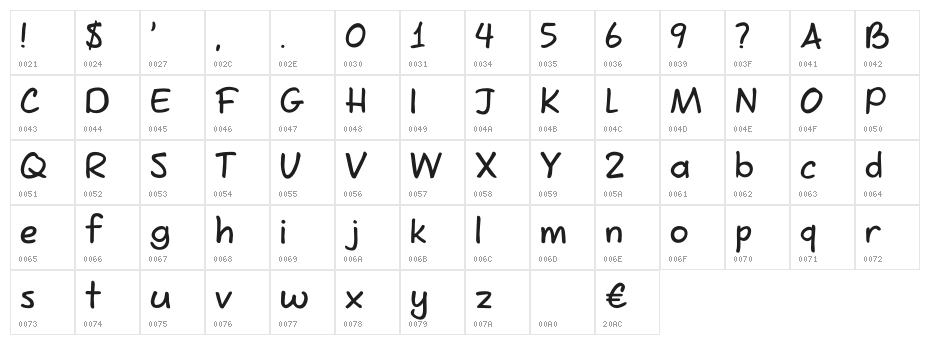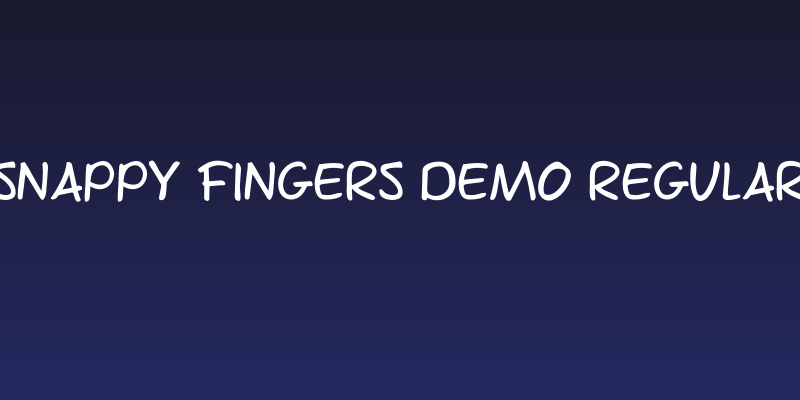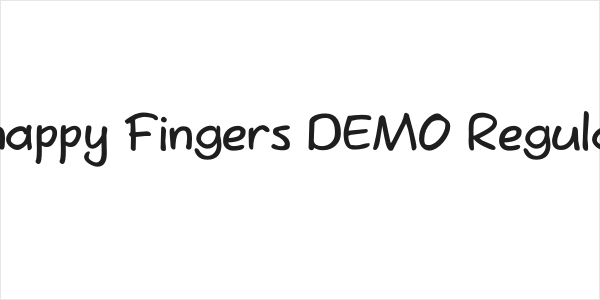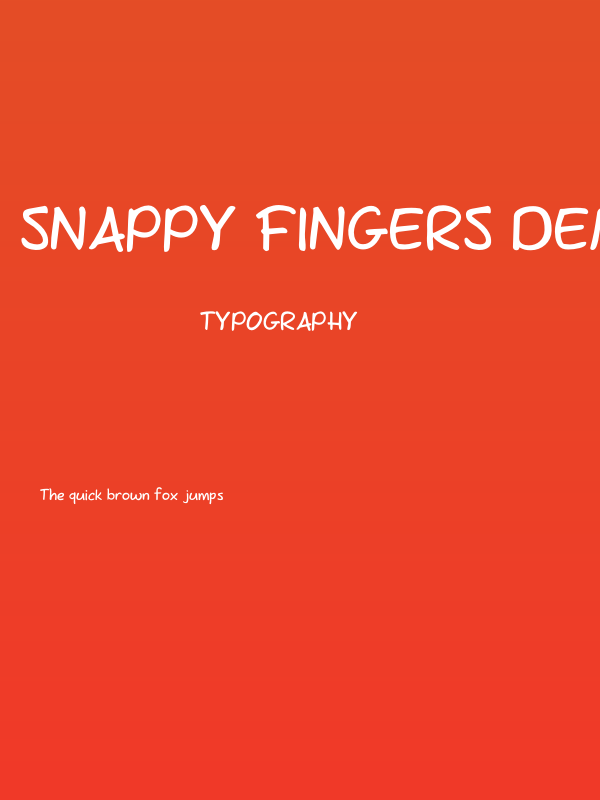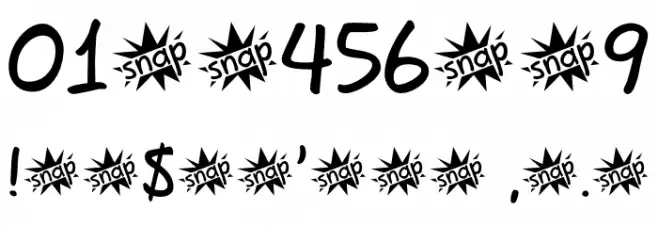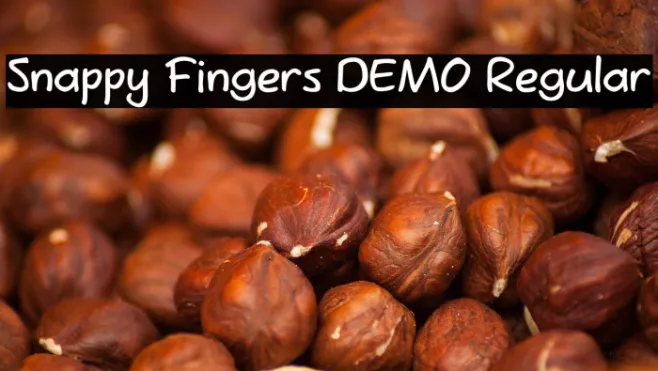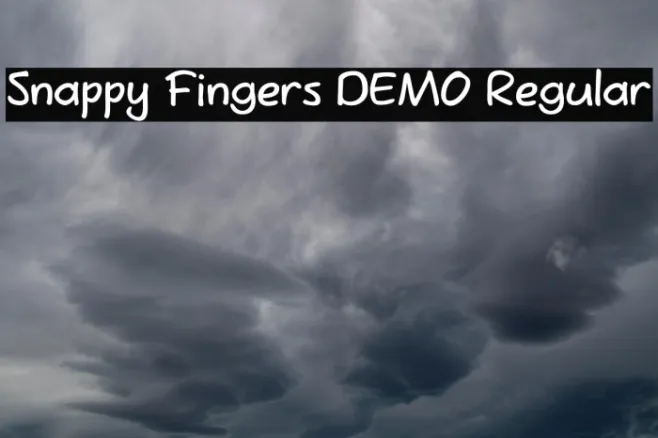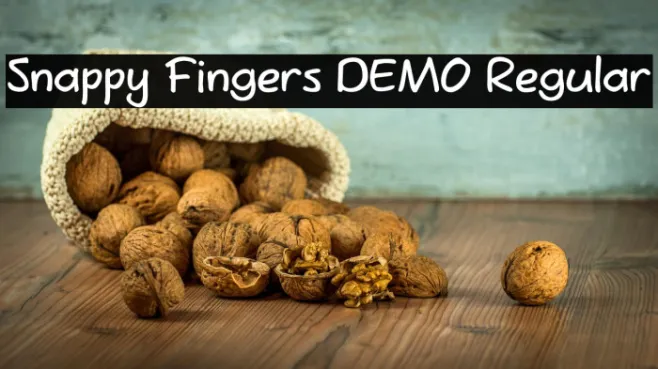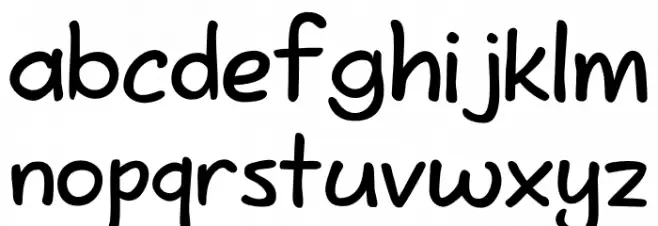
Snappy Fingers DEMO Regular Font
Snappy Fingers DEMO Regular Description
This playful and energetic font features a handwritten style with a casual and informal appearance. The characters are bold and rounded, giving a friendly and approachable feel. The uppercase and lowercase letters maintain a consistent flow, while the numbers and special characters add a unique flair with their dynamic 'snap' embellishments. The overall design is lively and engaging, making it suitable for projects that require a fun and whimsical touch.
| Overall Style | Playful |
| Use Case | Logos, Headlines, Posters |
| Proposed Projects | Ideal for children's books, comic strips, playful branding, and event invitations. |